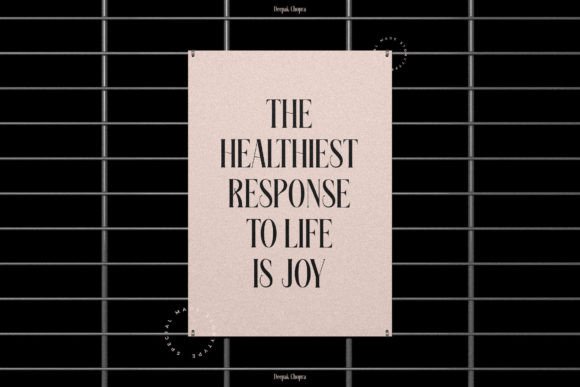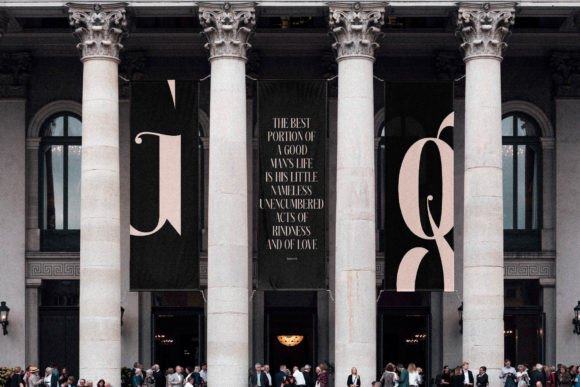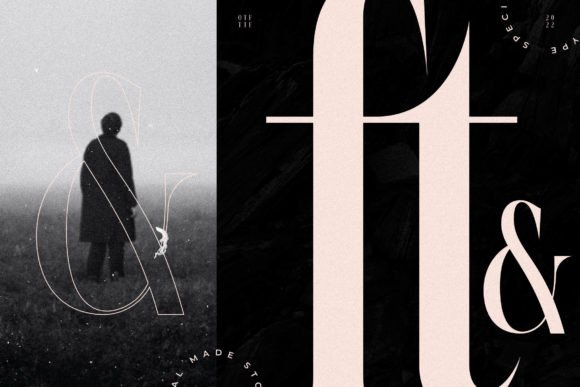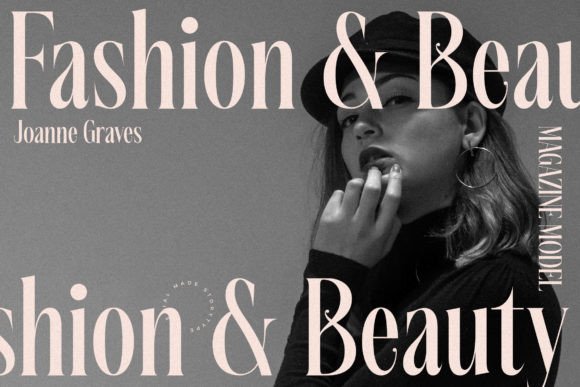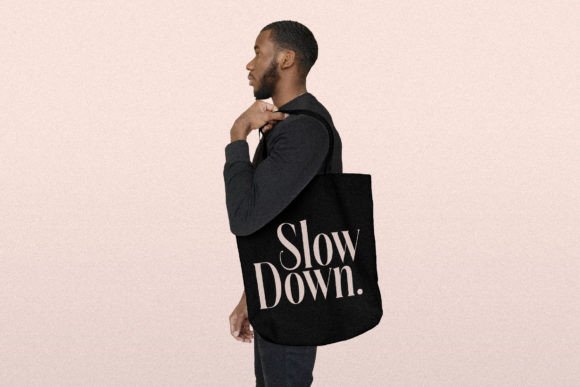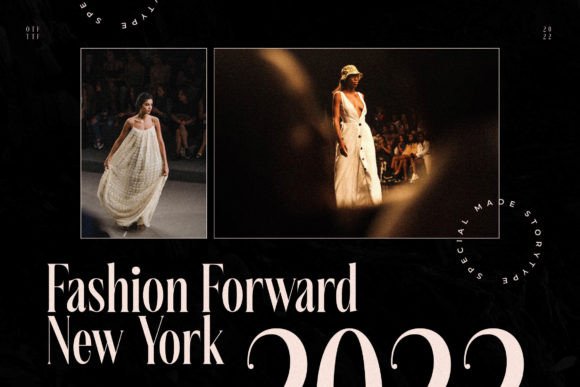
Introduction to Rasfferd Font
Have you ever been working on a creative project, pouring your heart and soul into it, only to feel like something’s missing? The perfect font can make all the difference, elevating your design from good to great. That’s where the Rasfferd Font comes in – a stunning serif typeface that’s sure to captivate your audience and leave a lasting impression.
As a valuable resource for designers, the Rasfferd Font offers a unique blend of style and versatility, making it perfect for a wide range of creative projects. Whether you’re working on a branding campaign, designing a brochure, or creating a website, this high-quality font is sure to enhance your craft with minimal effort.
Key Features of Rasfferd Font
- Its unique design makes it perfect for creative projects, such as branding, logos, and graphics, where a distinctive touch is required.
Honest Review: Rasfferd Font
I recently stumbled upon the Rasfferd Font, and I’m excited to share my thoughts with fellow designers. As a design resource, it’s great to see new fonts popping up, especially ones that offer a unique touch to creative projects.
The Rasfferd Font is available for free download, which is a huge plus for designers working on a budget. With its modern design, it’s perfect for projects that require a clean and sophisticated look. The font is available in various styles, making it a versatile option for different design applications.
Here’s what works well: ✨ The Rasfferd Font has a transparent background, which makes it easy to use on any background. The high quality of the font is also impressive, with clear and crisp typography. The font is also fully customizable, allowing designers to adjust the size, color, and style to fit their project’s requirements.
Overall, I’m impressed with the Rasfferd Font, and I would recommend it to designers working on creative projects that require a modern and sophisticated look.
- Modern and sophisticated design
- High quality typography
- Customizable
The Rasfferd Font is a high-quality design resource that offers a unique and creative way to enhance your projects. With its transparent background and free download option, it’s an excellent choice for designers looking to add a touch of elegance to their work.
Tips for Getting the Most Out of Rasfferd Font
To get the most out of the Rasfferd Font, experiment with different font sizes and styles, and combine it with other design elements to create a visually appealing design. You can also use it to create custom logos, icons, or graphics.
Common Use Cases for Rasfferd Font
The Rasfferd Font is ideal for creative projects such as graphic design, digital art, and branding. It’s also a great choice for designers who want to add a touch of sophistication to their work.